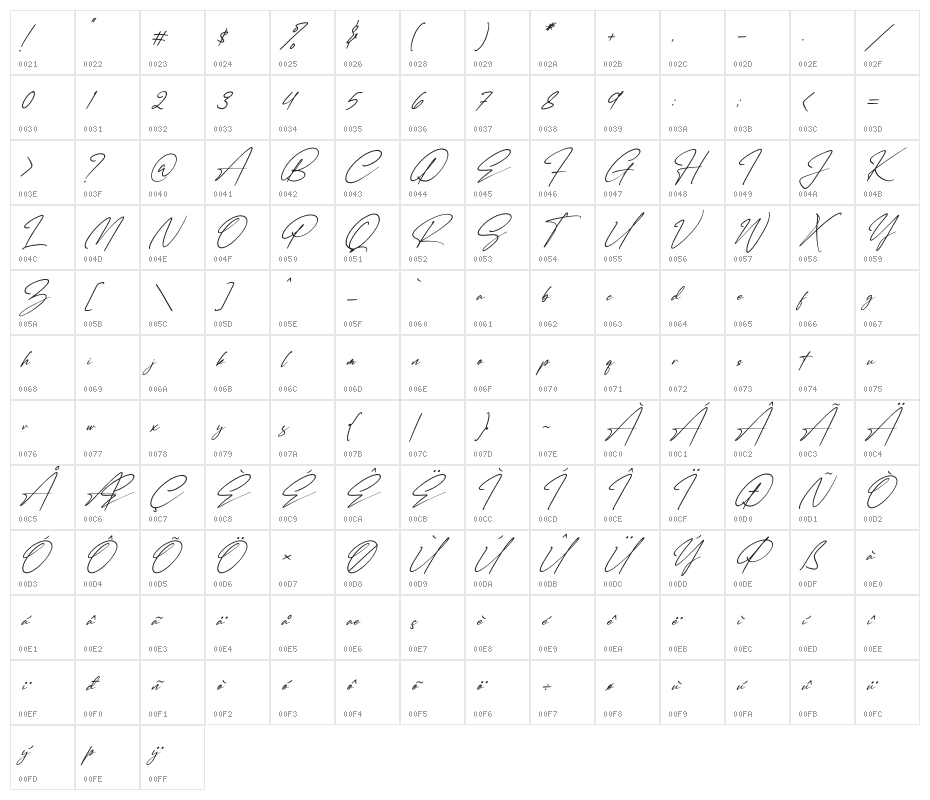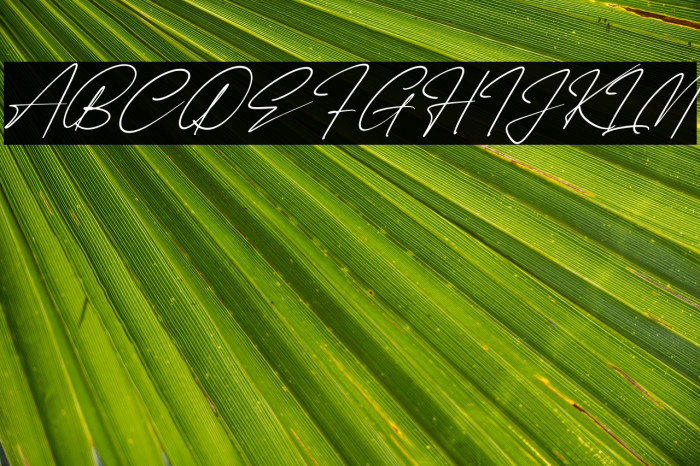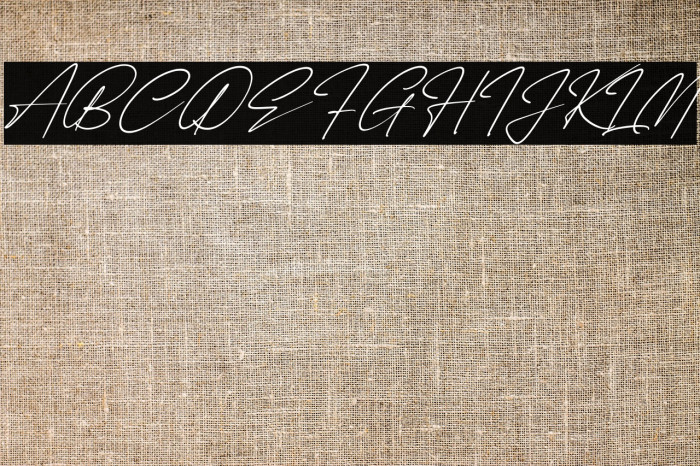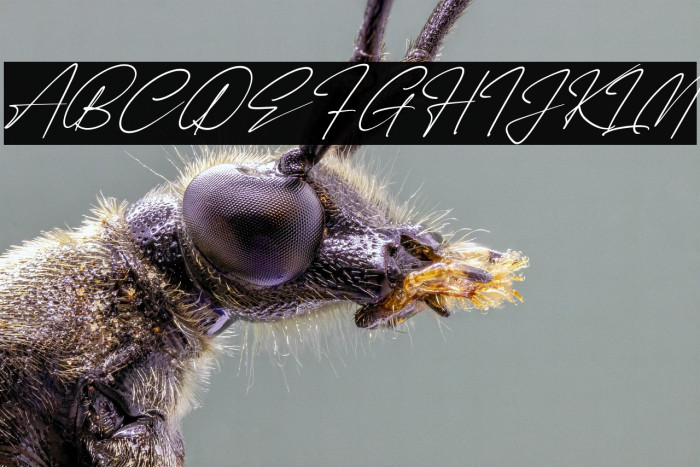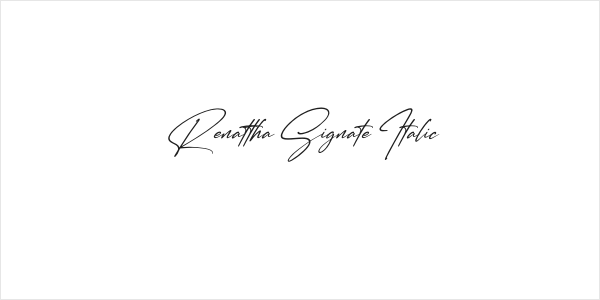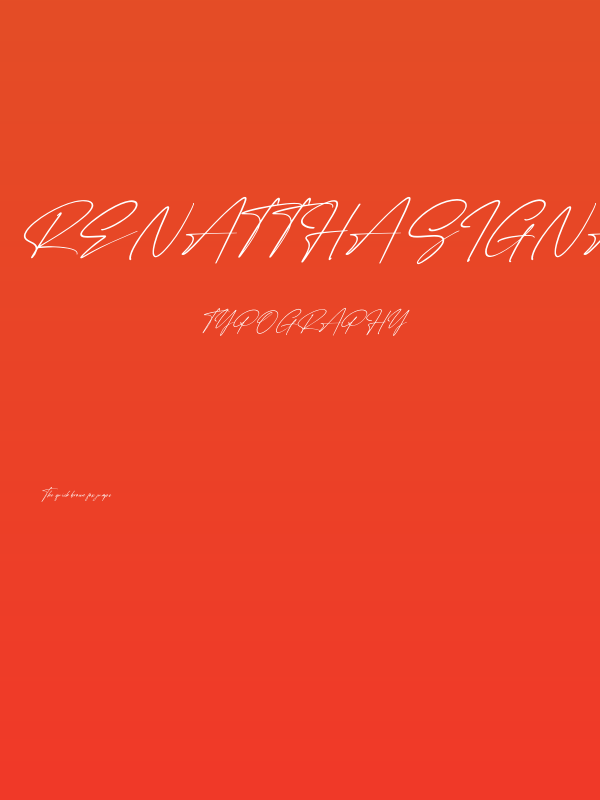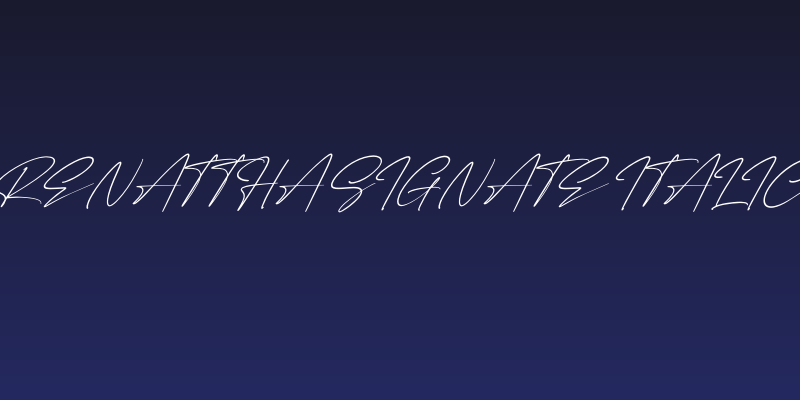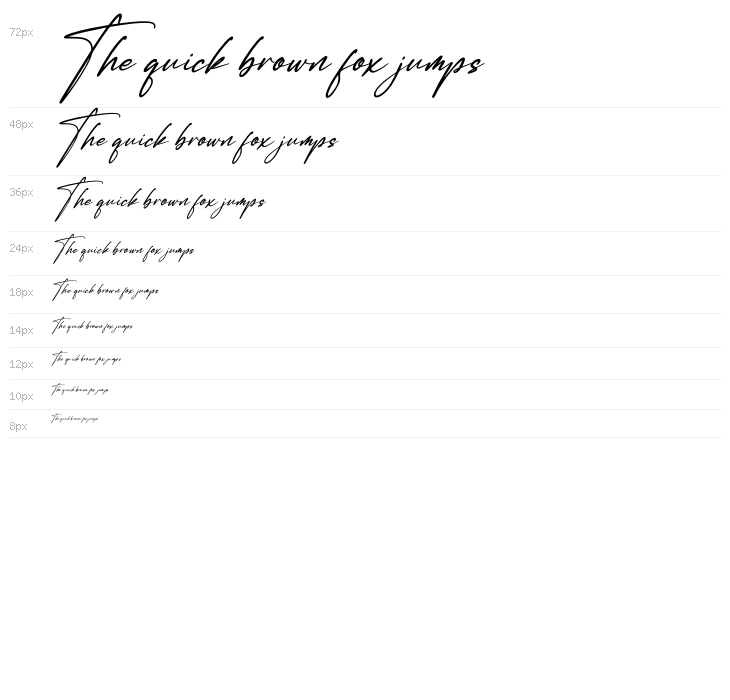
Renattha Signate Italic Font
Renattha Signate Italic Description
This font exudes elegance and sophistication with its flowing, cursive style. The letters are intricately designed, showcasing a smooth and continuous stroke that mimics the fluidity of handwritten script. Each character is distinct yet harmoniously connected, creating a seamless and graceful appearance. The uppercase letters stand tall with a slight slant, while the lowercase letters maintain a consistent rhythm, enhancing readability. The numerals are stylishly crafted, complementing the overall aesthetic. Special characters are thoughtfully integrated, maintaining the font's cohesive look. This font is perfect for adding a touch of class and personality to any project.
| Overall Style | Elegant, Handwritten |
| Use Case | Logos, Invitations, Personal Signatures |
| Proposed Projects | Ideal for wedding invitations, elegant branding, personal signatures, and artistic projects. |